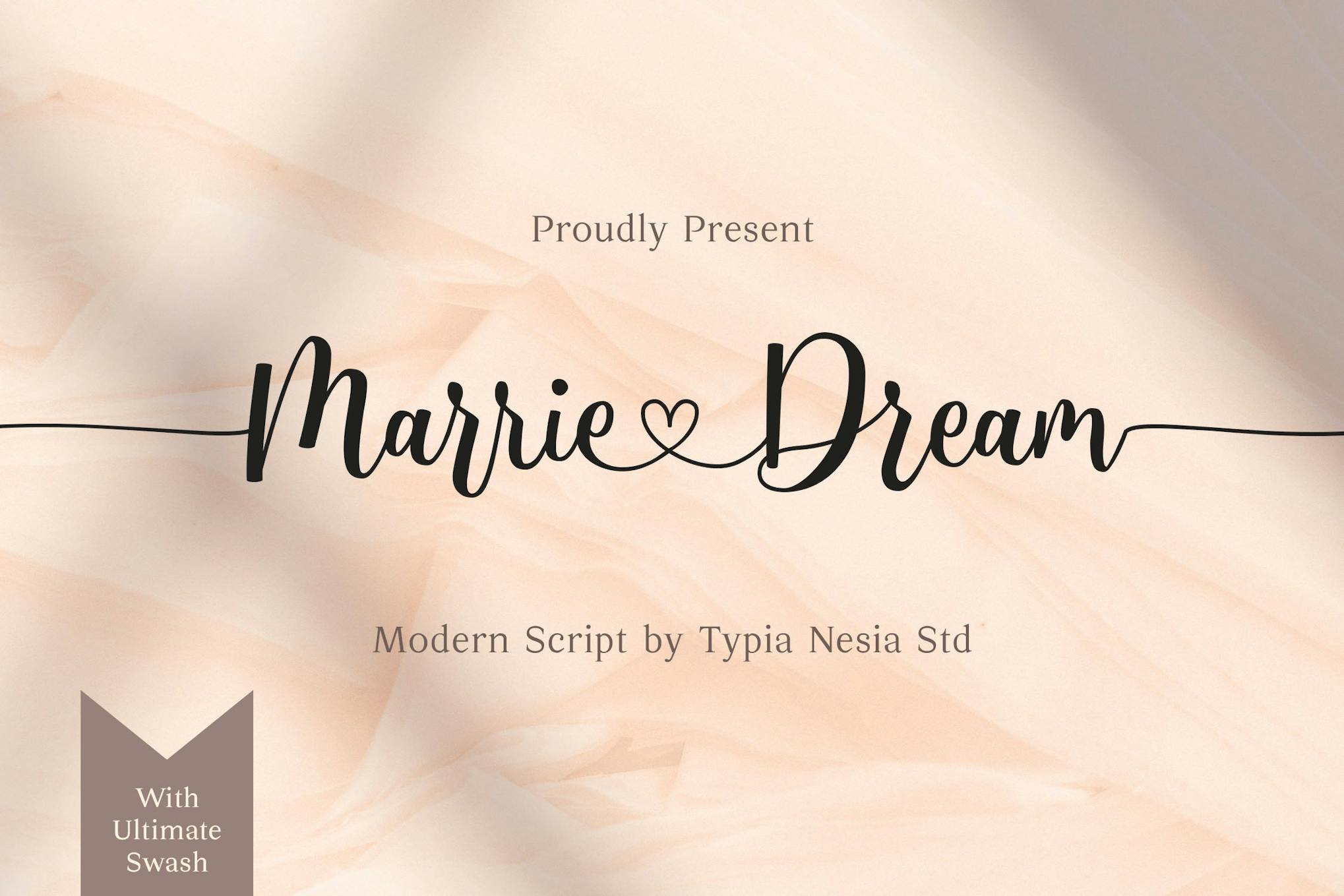
Marrie Dream - Wedding Font
The Marrie Dream - Wedding Font excels in dreamy design applications including dreamy wedding invitations, romantic bridal branding, fantasy ceremony logos, dreamy product packaging, romantic business cards, fantasy portfolios, dreamy greeting cards, romantic social media graphics, fantasy event signage, and dreamy marketing materials. Its dreamy script style makes it perfect for projects requiring fantasy elegance that communicates romance and establishes dreamy brand positioning with audiences seeking romantic wedding experiences and fantasy sophistication.
What makes the Marrie Dream - Wedding Font truly exciting is its exceptional ability to capture the dreamy romance and fantasy beauty of romantic weddings through dreamingly crafted letterforms. The font features flowing, dreamy strokes with romantic flourishes and fantasy proportions that create a distinctly romantic appearance. Each character displays remarkable attention to dreamy detail with romantic curves, fantasy connections, and dreamy spacing that give text a beautifully romantic, hand-lettered quality. The font's dreamy character and romantic rhythm create an atmosphere of fantasy romance while maintaining dreamy sophistication and wedding authenticity.
The Marrie Dream - Wedding Font family typically includes regular weight with extensive character coverage, featuring uppercase and lowercase letters, numerals, punctuation marks, and international characters. The typeface often incorporates stylistic alternates, contextual ligatures, and dreamy swashes that enhance its signature romance. These additional elements provide designers with creative flexibility to customize text appearance and achieve more natural-looking romantic handwriting that reflects the font's dreamy and fantasy character.
This dreamy signature font distinguishes itself through its remarkable balance of romantic charm and sophisticated elegance. Unlike realistic or mundane fonts that lack fantasy appeal, Marrie Dream - Wedding Font embraces the power of dreamy design to create romantic connections with fantasy wedding audiences. The font's romantic character makes it essential for dreamy wedding planners, romantic brands, and fantasy celebration businesses where creating romantic wedding experiences and dreamy memories is fundamental to success in fantasy wedding markets.